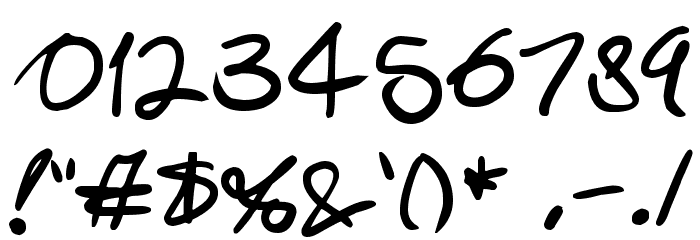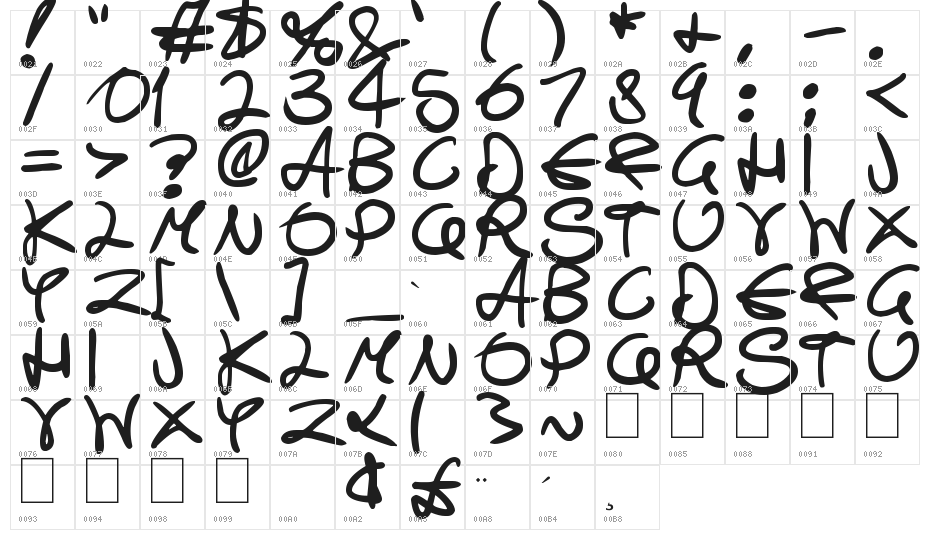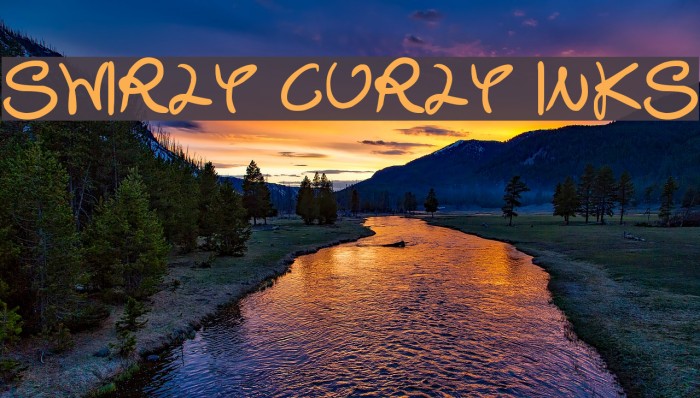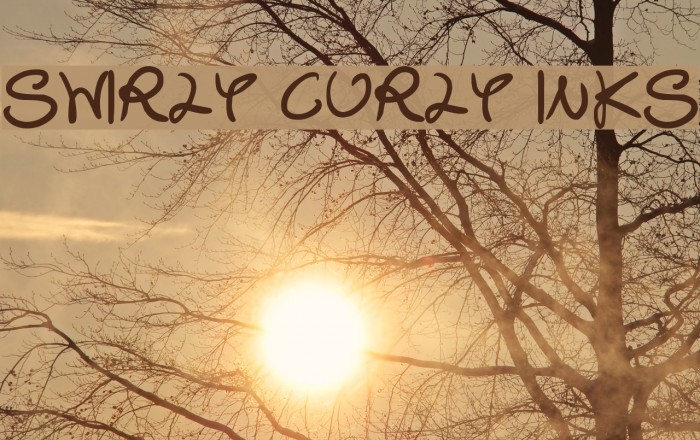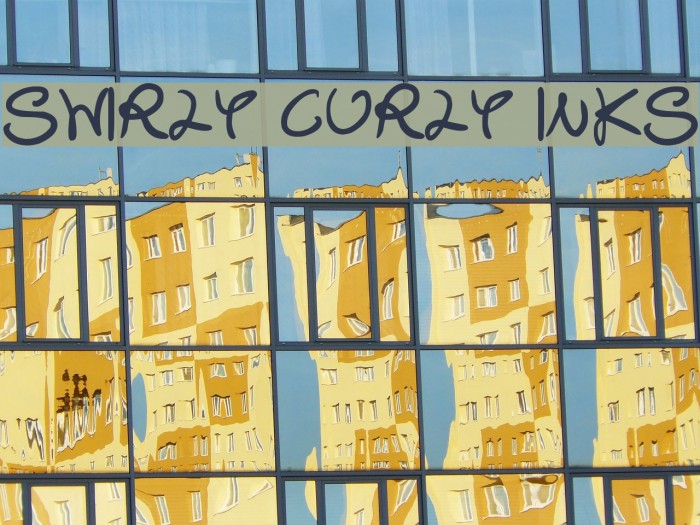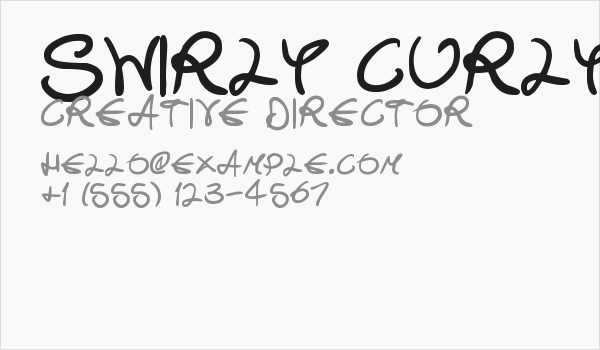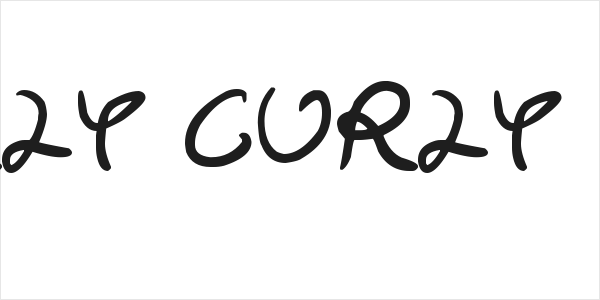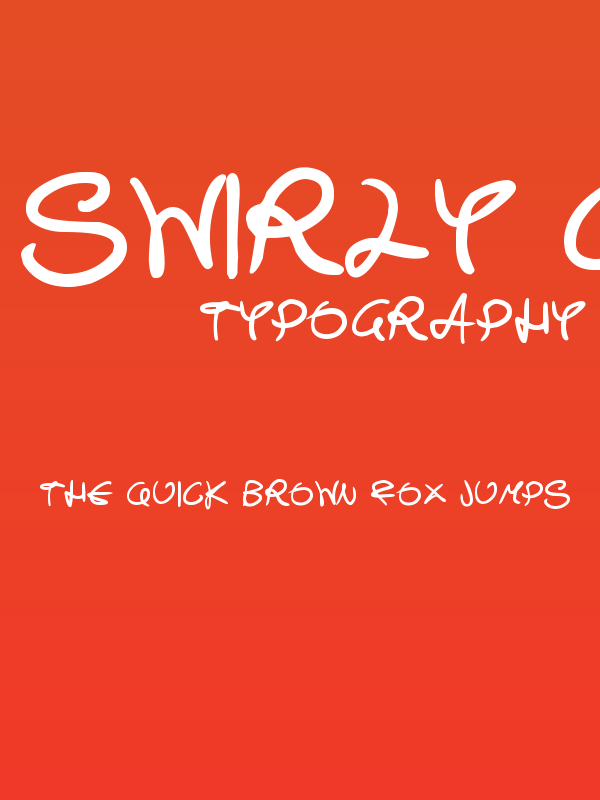
Swirly Curly Inks Font
Swirly Curly Inks Description
This font features a playful and whimsical design with a handwritten style. The letters are characterized by their curly and swirly strokes, giving them a dynamic and lively appearance. The uppercase and lowercase letters maintain a consistent flow, with each character exhibiting unique loops and curves. The numbers and special characters follow the same playful aesthetic, making the font suitable for creative and informal projects. The overall look is casual yet artistic, perfect for adding a personal touch to any design.
| Proposed Projects | Ideal for greeting cards, children's books, playful branding, and creative invitations. |